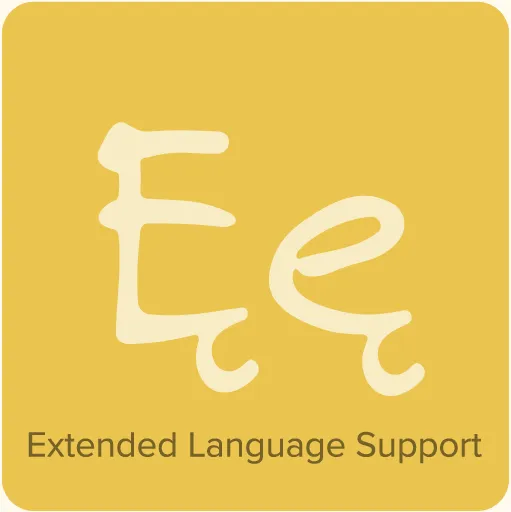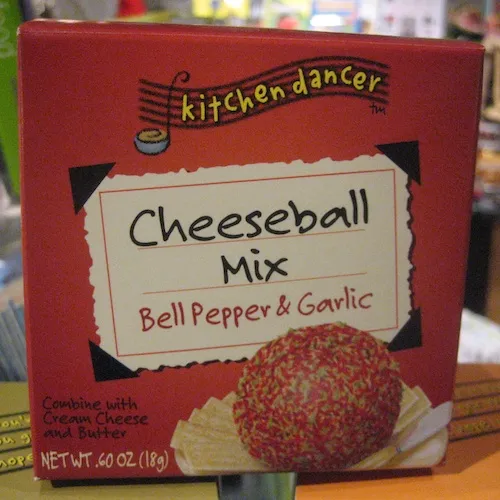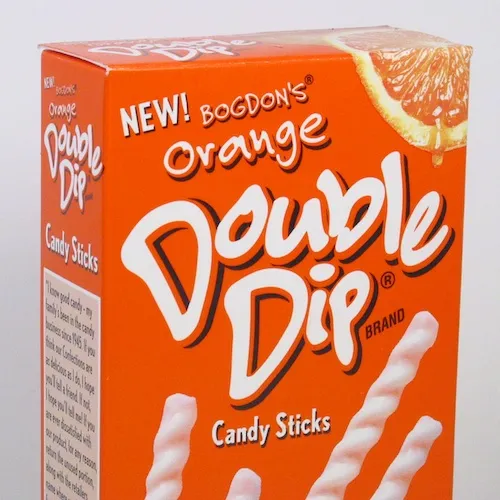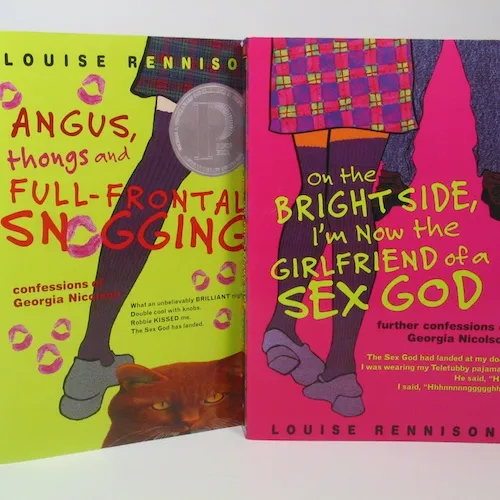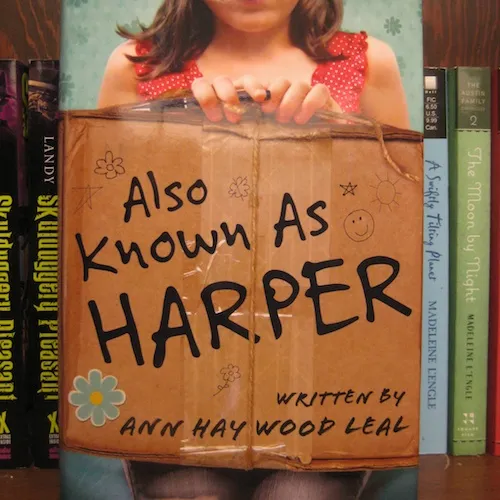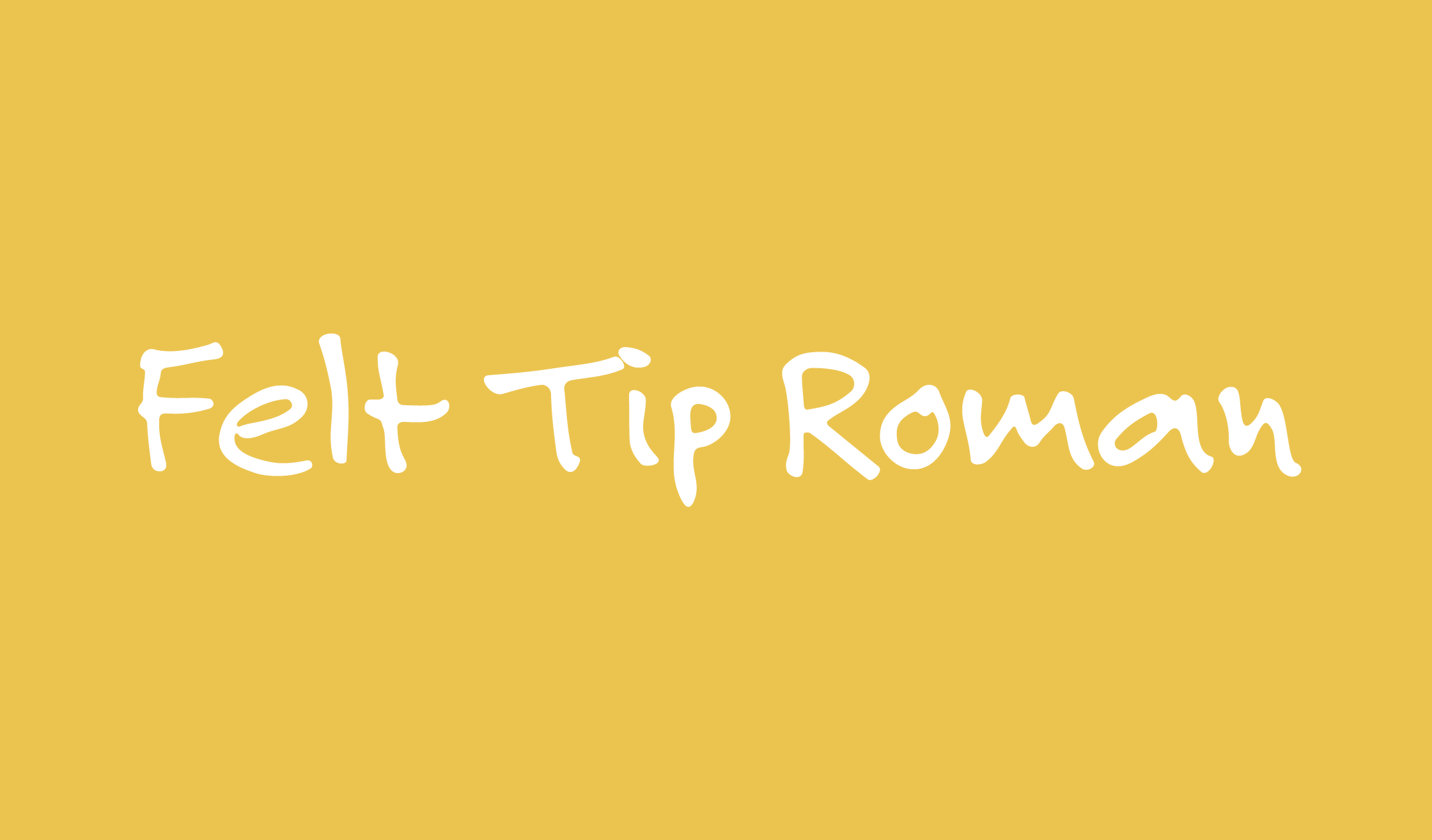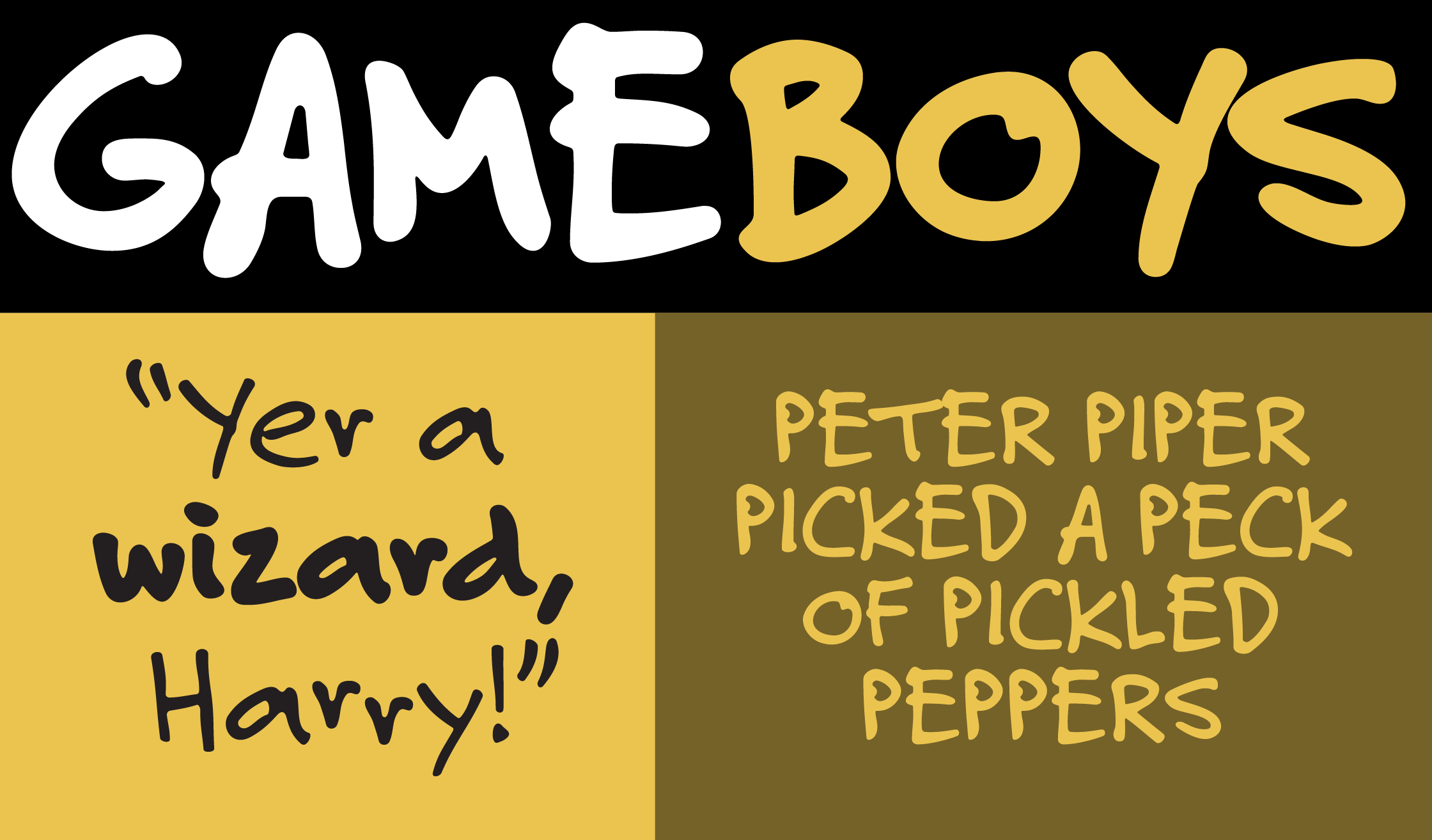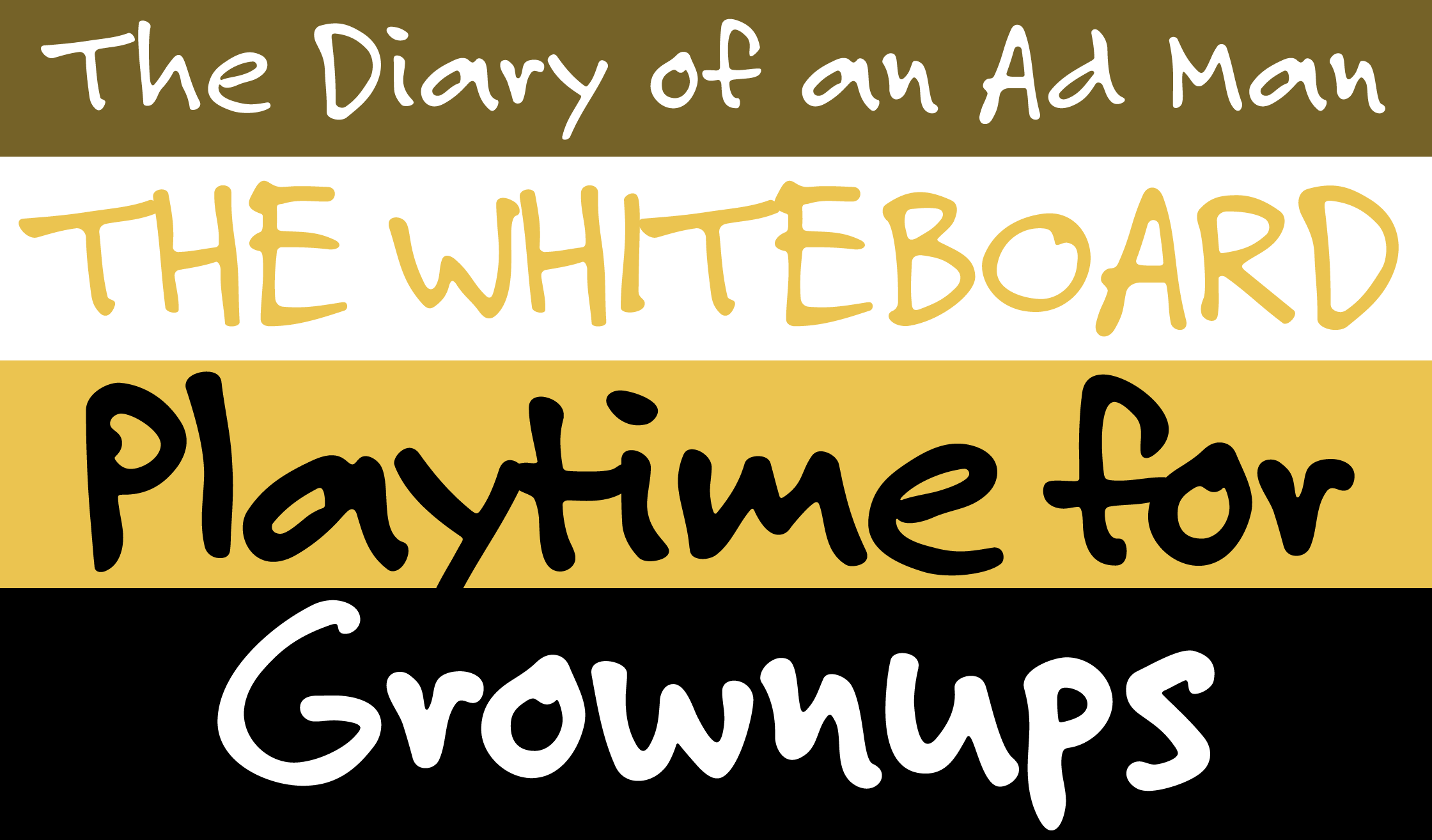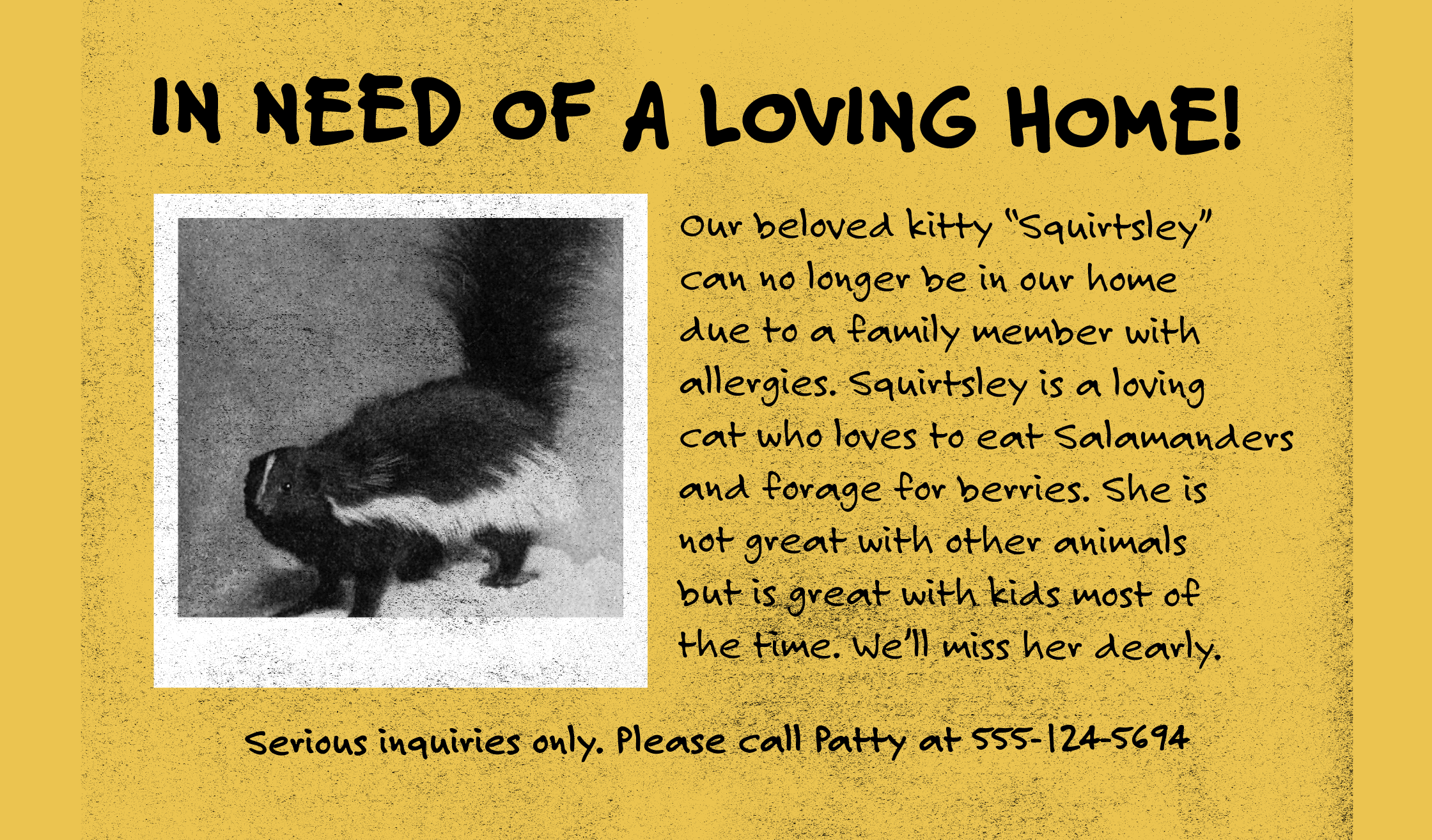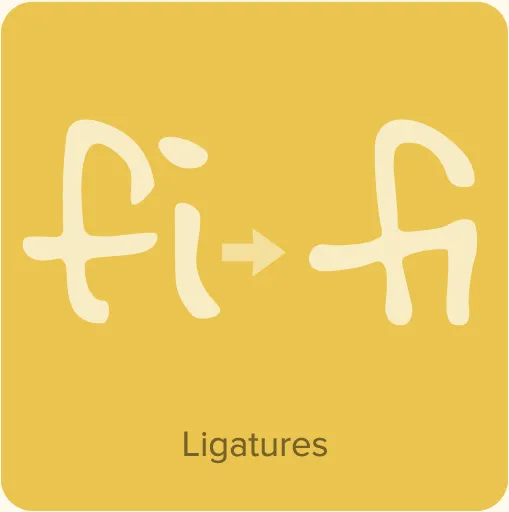
Felt Tip Roman (1992, 2003) is one of my most popular fonts, and the first font I ever released. It’s my own handwriting carefully digitized by hand (not auto-traced). Handwriting fonts are very common now, but they weren’t in 1989 when I started working on it. I just wanted to see what it would look like, not imagining that other people might want to use it. (Thank you, Mark Solsburg of FontHaus for encouraging me to release it.) I added two more weights, Bold and Heavy, in 2003 to create a more versatile set of fonts.
Felt Tip Roman Features
- Three weights: Regular, Bold, and Heavy.
- Ligatures.
- Extended language support for most Latin-based Western and Central European languages.
Felt Tip Roman Original Art It’s actually the back of a sheet from a phone message pad. You can see some of the rejected characters here (that “section” symbol is tricky), but mostly I went with the initial sketch.